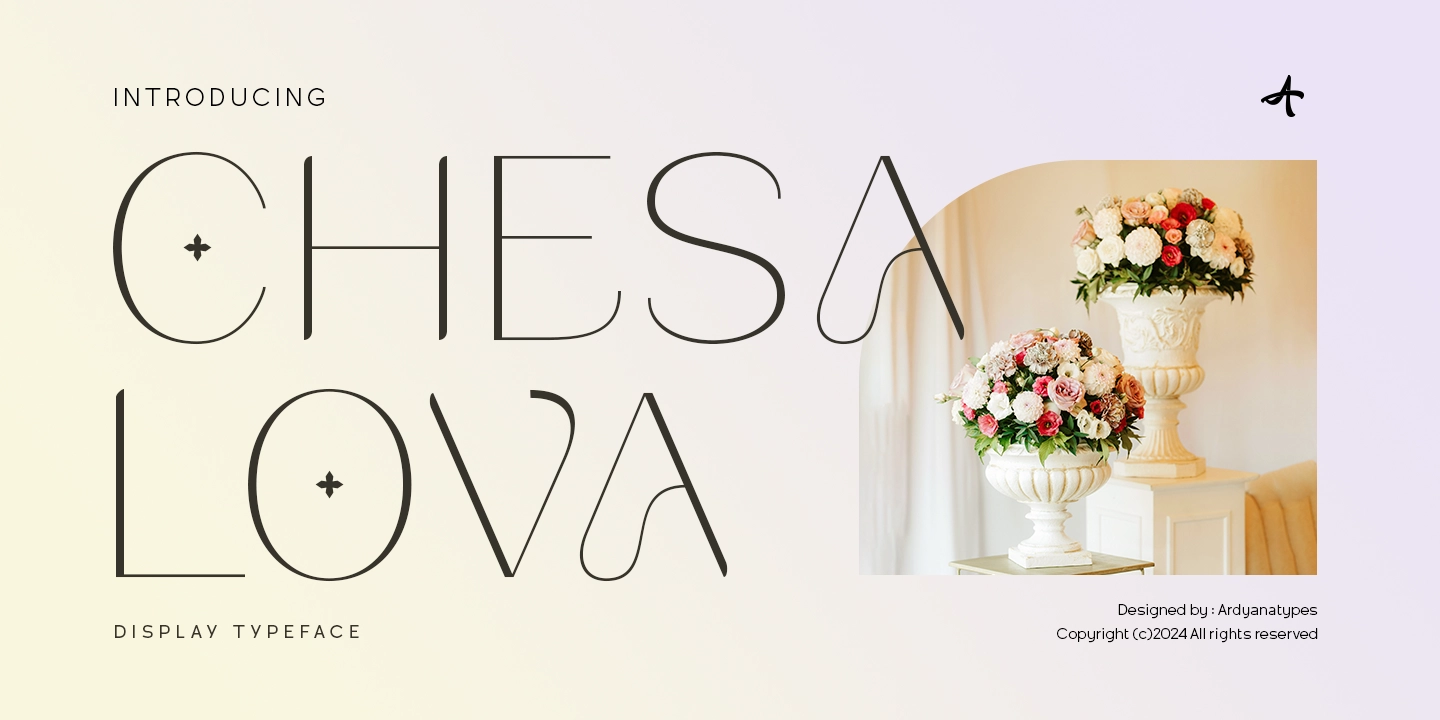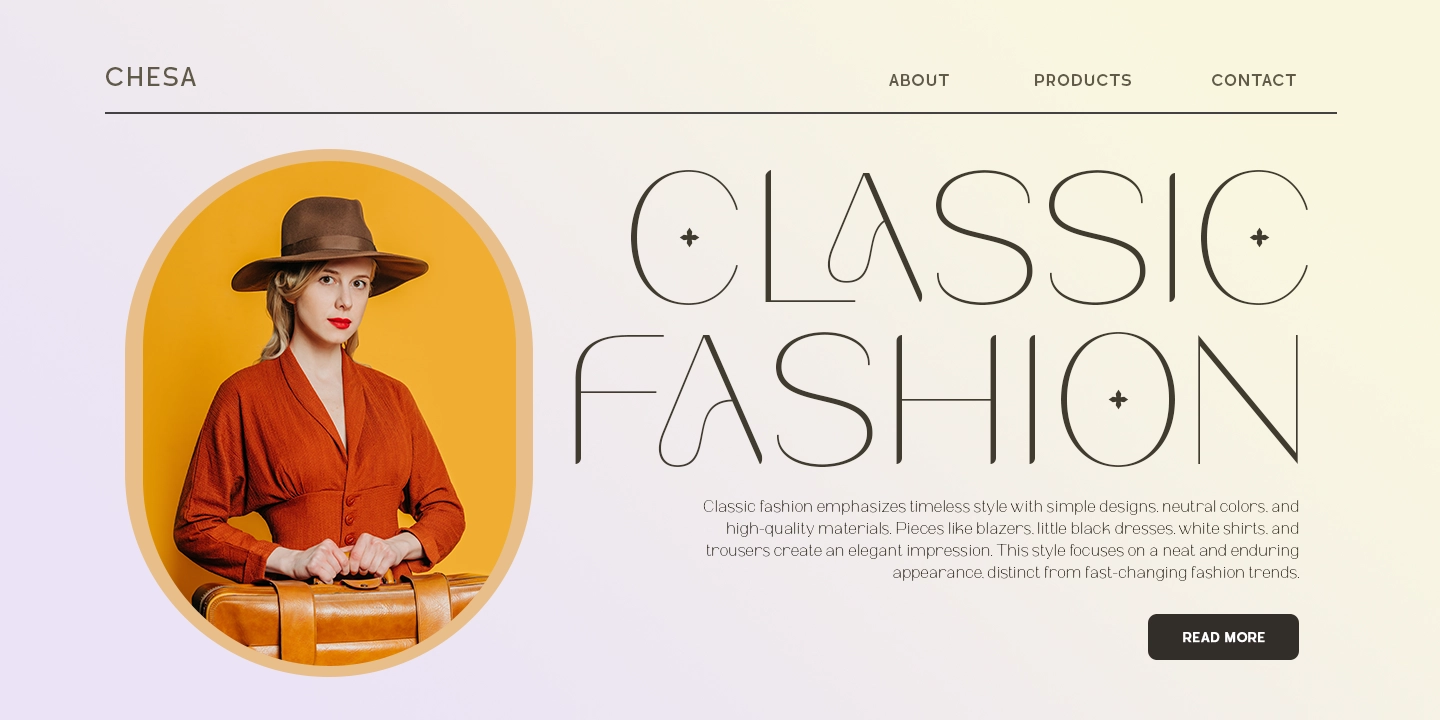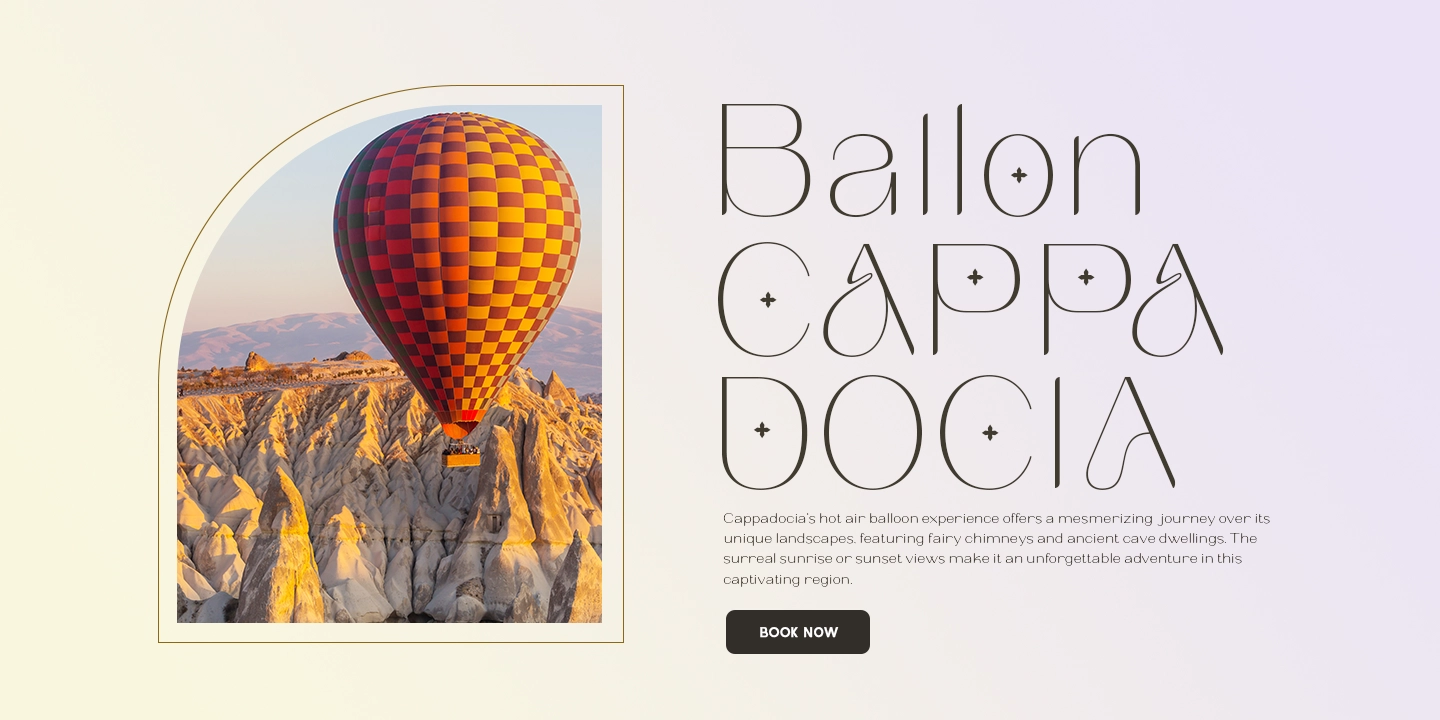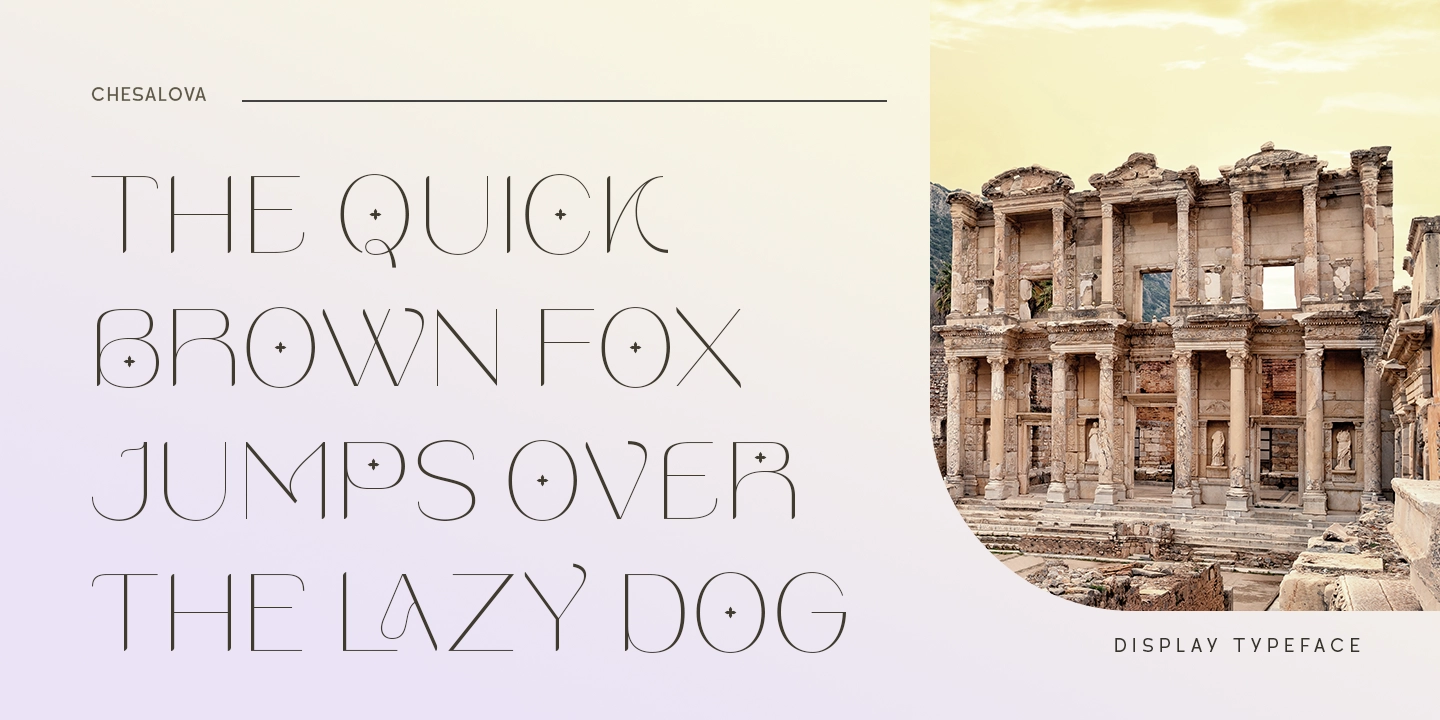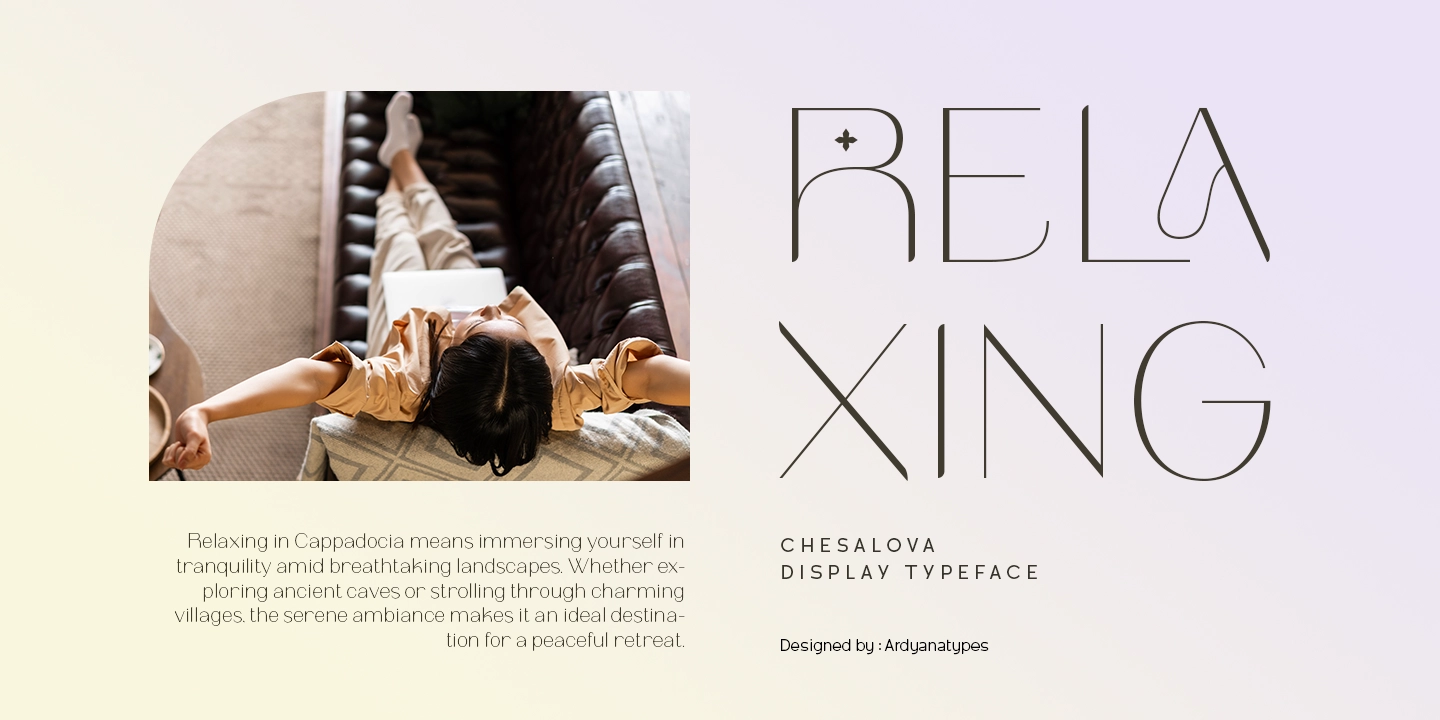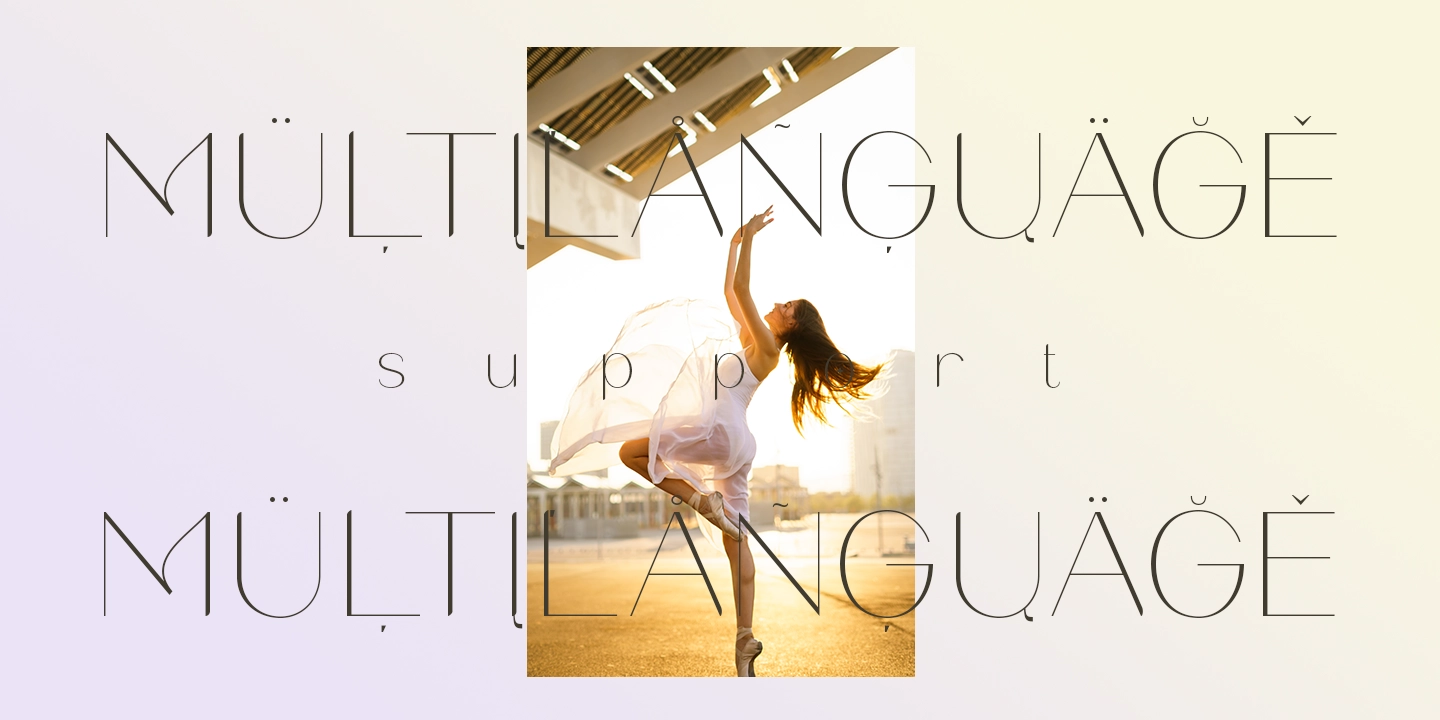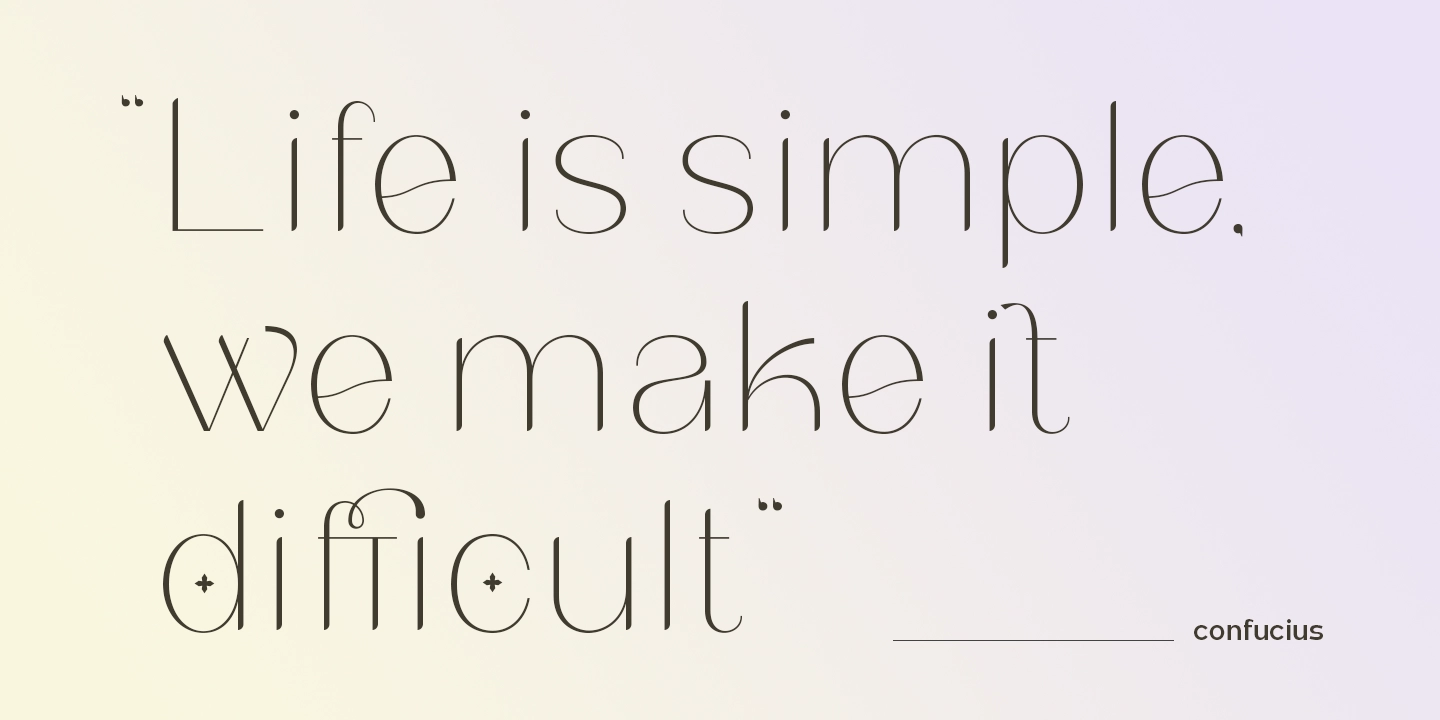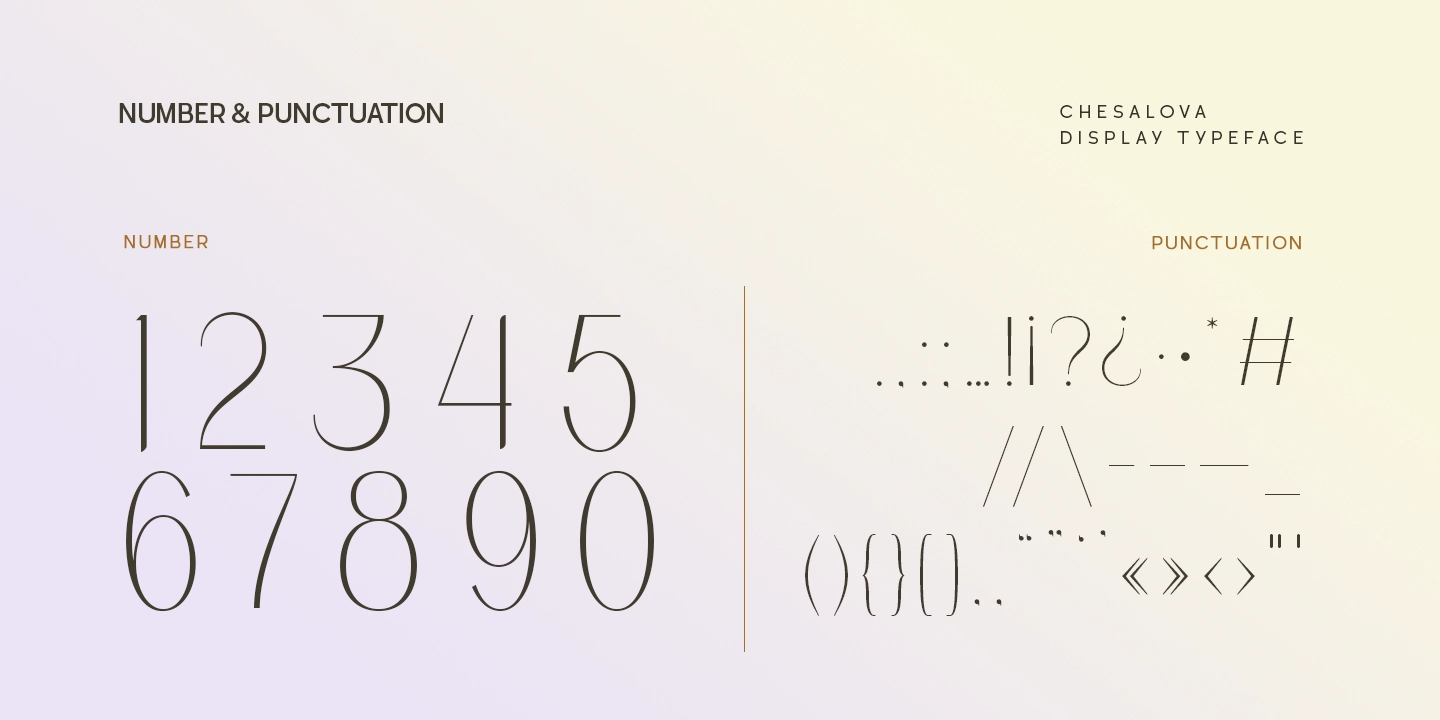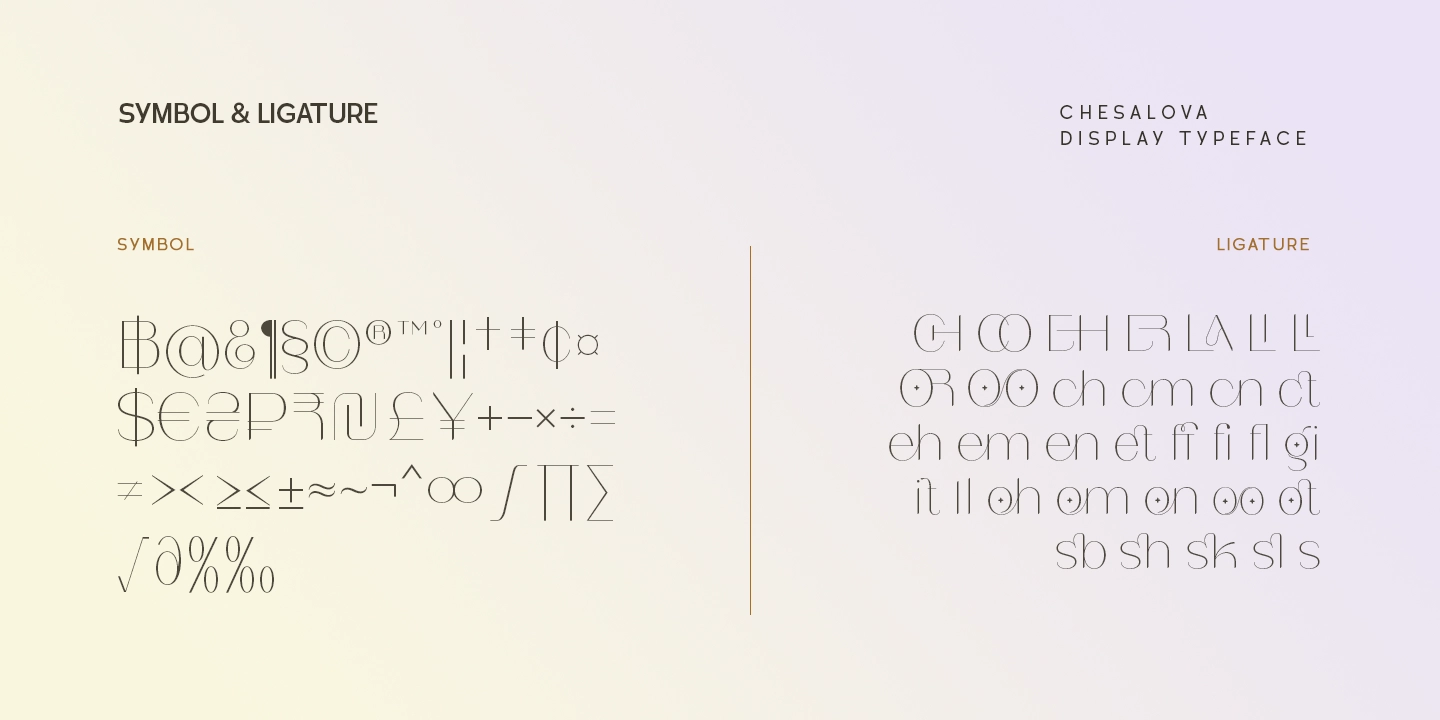
Chesalova - Unique Typeface
Chesalova is a unique typeface with a highly minimalist appearance. Designed with simplicity and uniqueness as its primary focus, this font offers ease of readability and broad applicability in various designs. Its OpenType features enable users to add creative touches to their designs, providing exciting and diverse options.
One of Chesalova's main advantages is its ability to adapt to various languages. With support for many languages, users can easily apply this font in various multilingual design contexts.
Chesalova is highly suitable for various design purposes, including but not limited to business card creation, logo design, book layout, posters, and various other design needs. Its simple yet captivating presence will add a special touch to each of your design works, making it an ideal choice for conveying messages clearly and attractively.
• ffi ffi
• ffl ffl
• CH CH
• Co Co
• EH EH
• ER ER
• LA LA
• LI LI
• LL LL
• OB OB
• OO OO
• ch ch
• cm cm
• cn cn
• eh eh
• em em
• en en
• et et
• fl fl
• gi gi
• it it
• oh oh
• om om
• on on
• oo oo
• ot ot
• sb sb
• sh sh
• sk sk
• sl sl